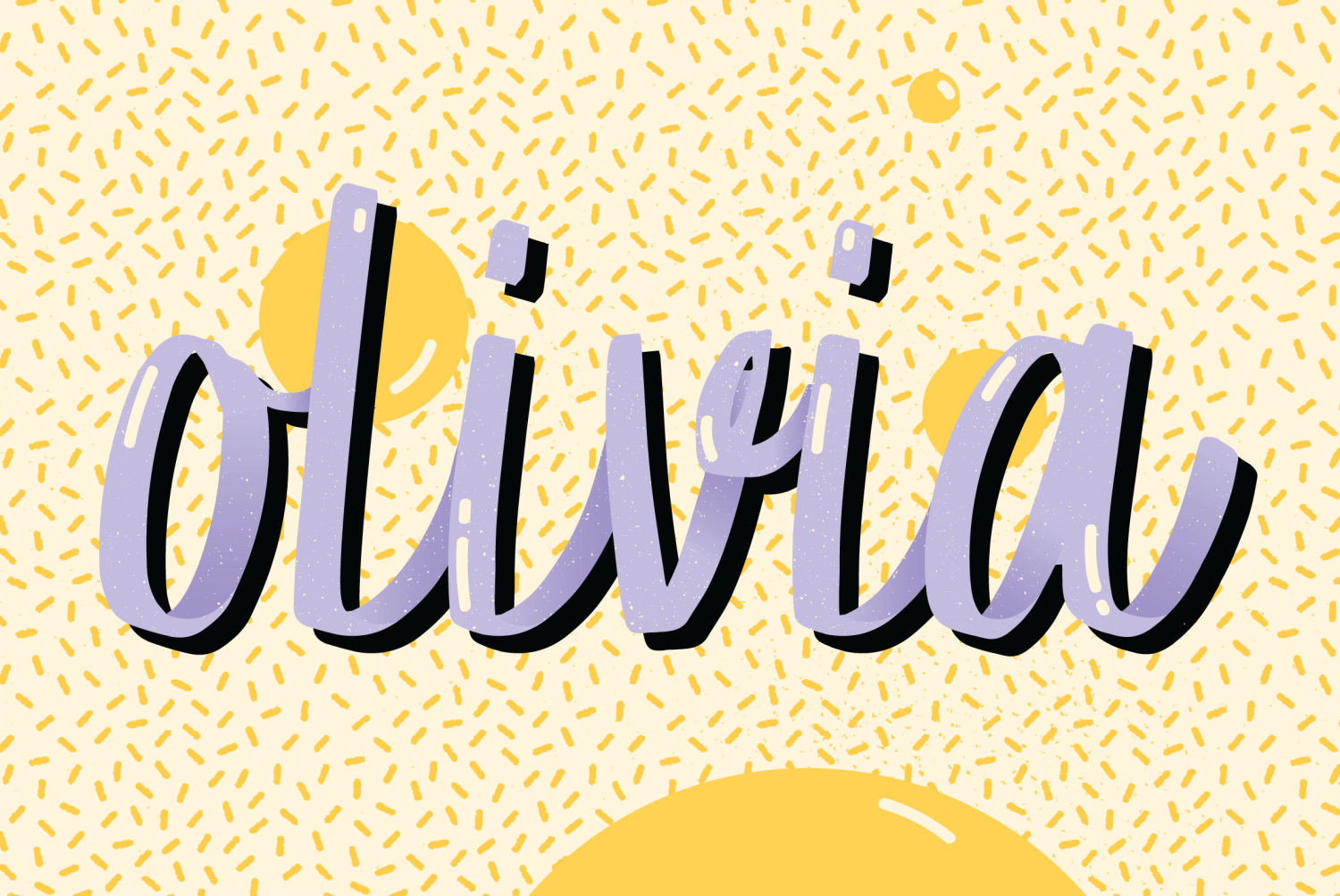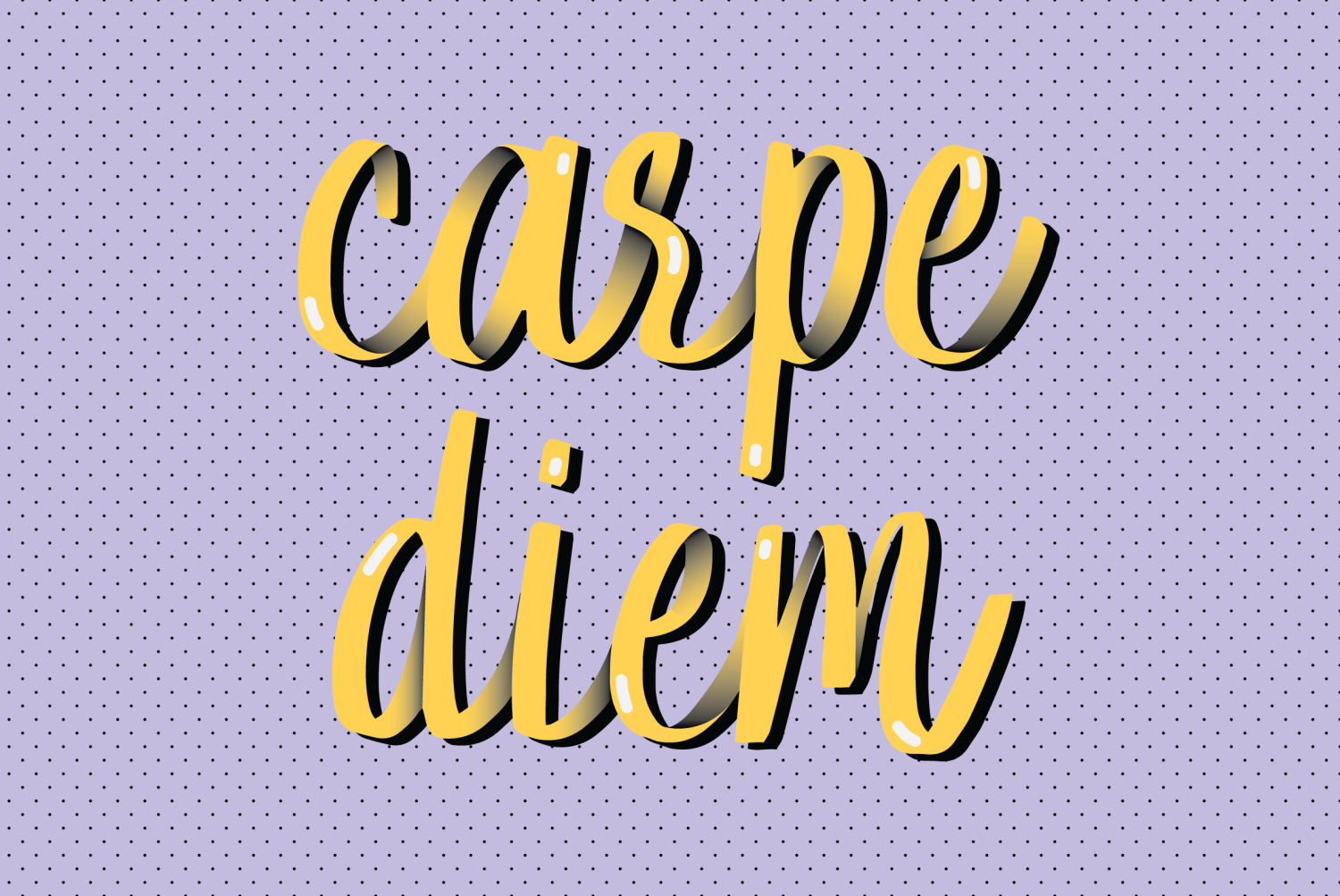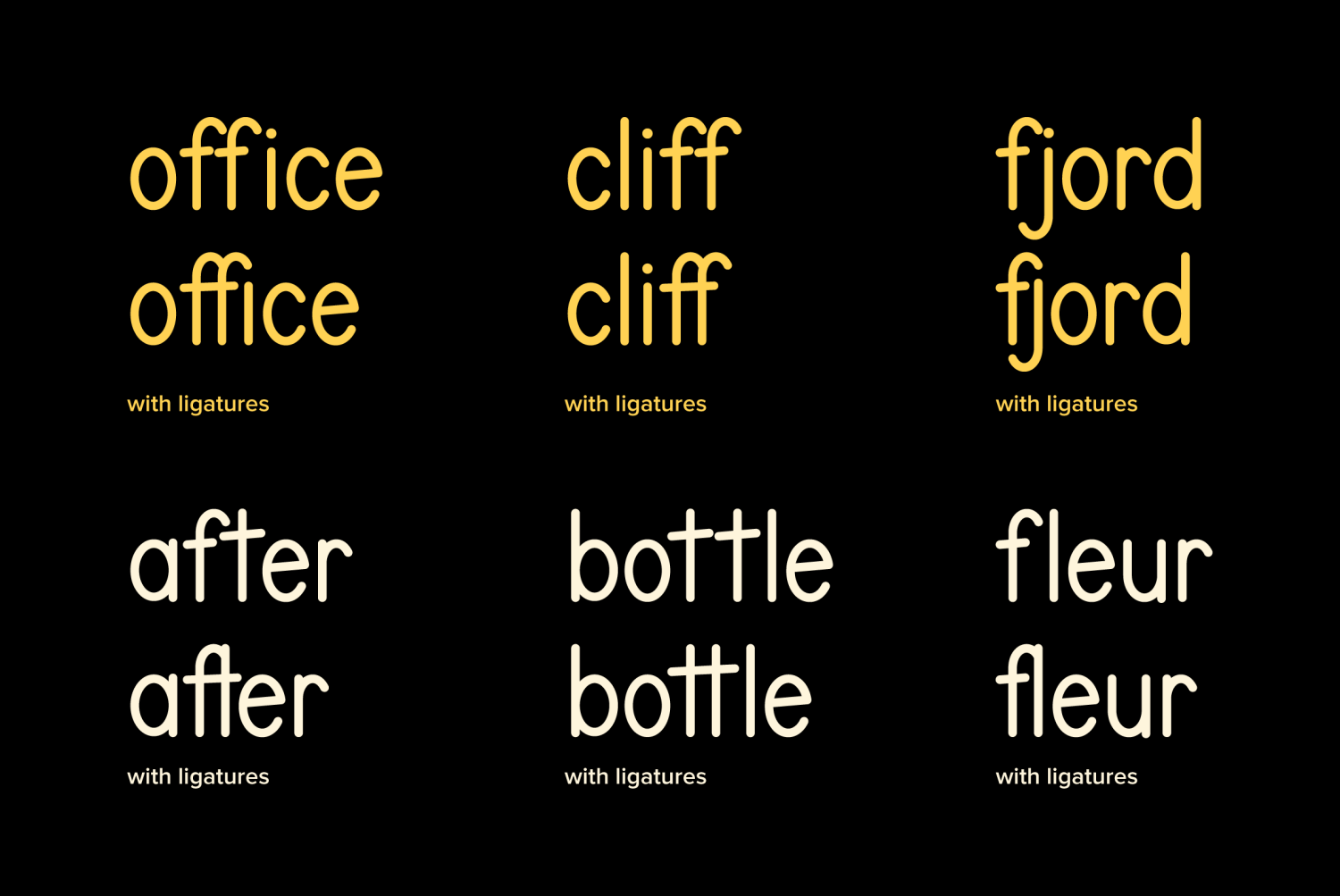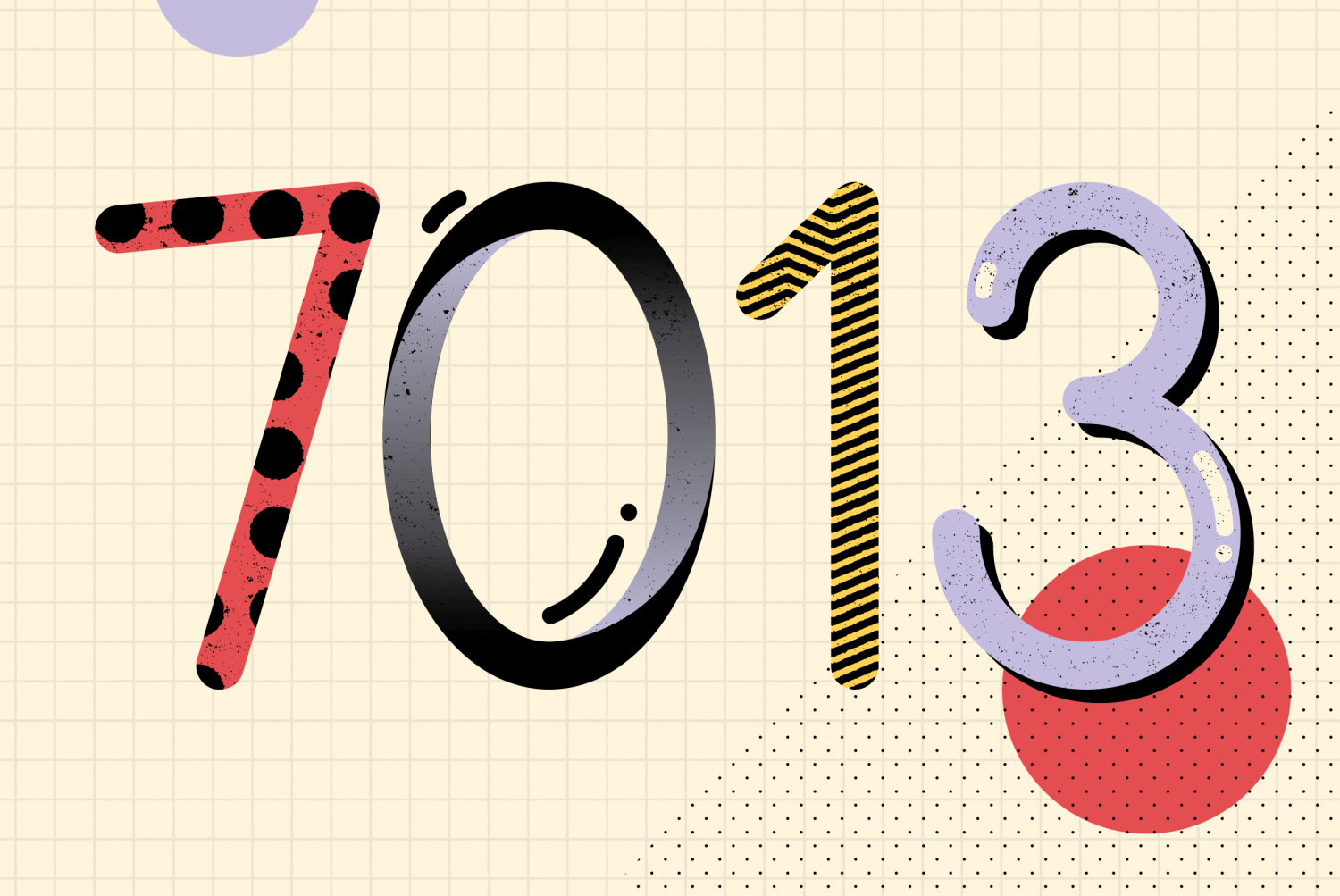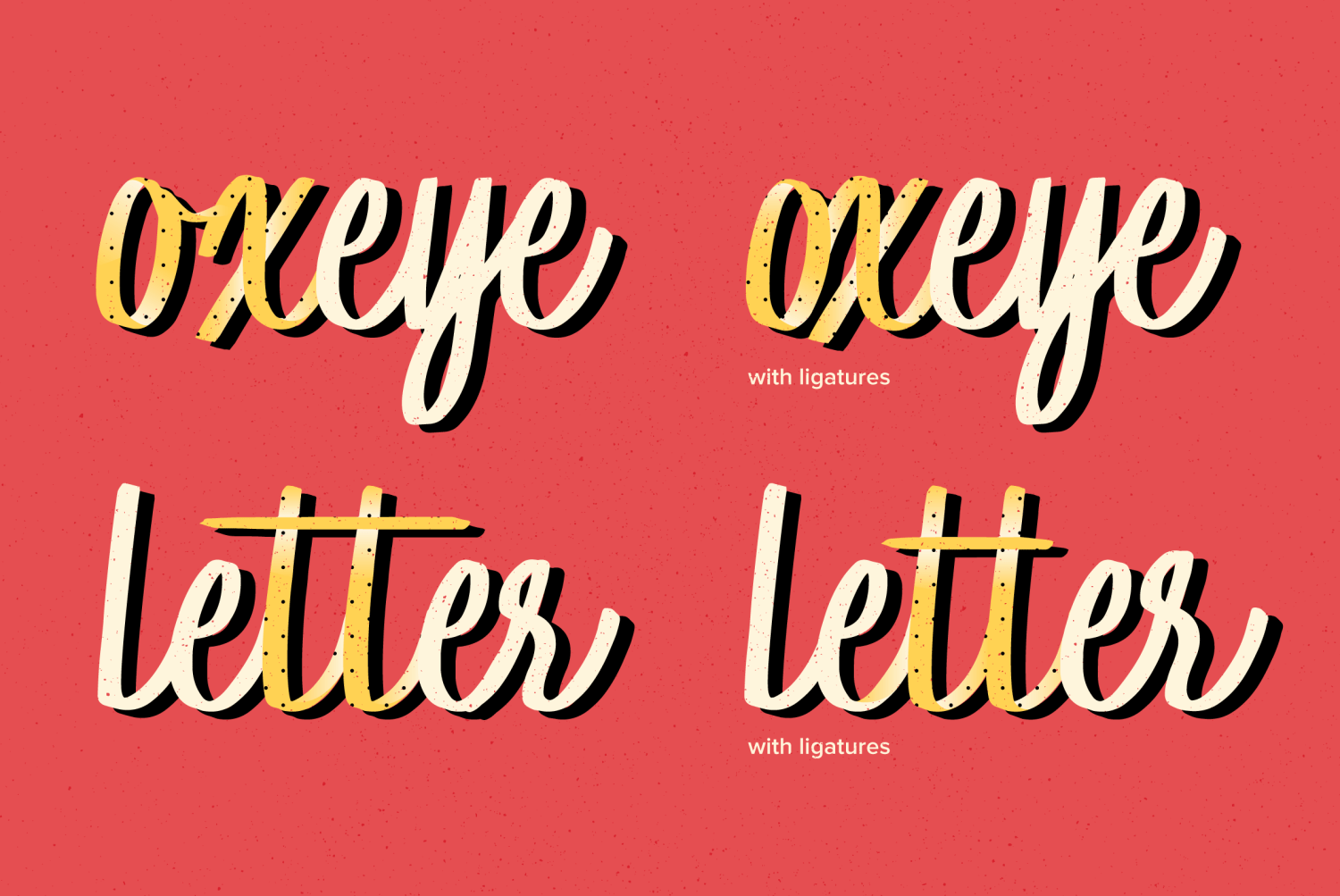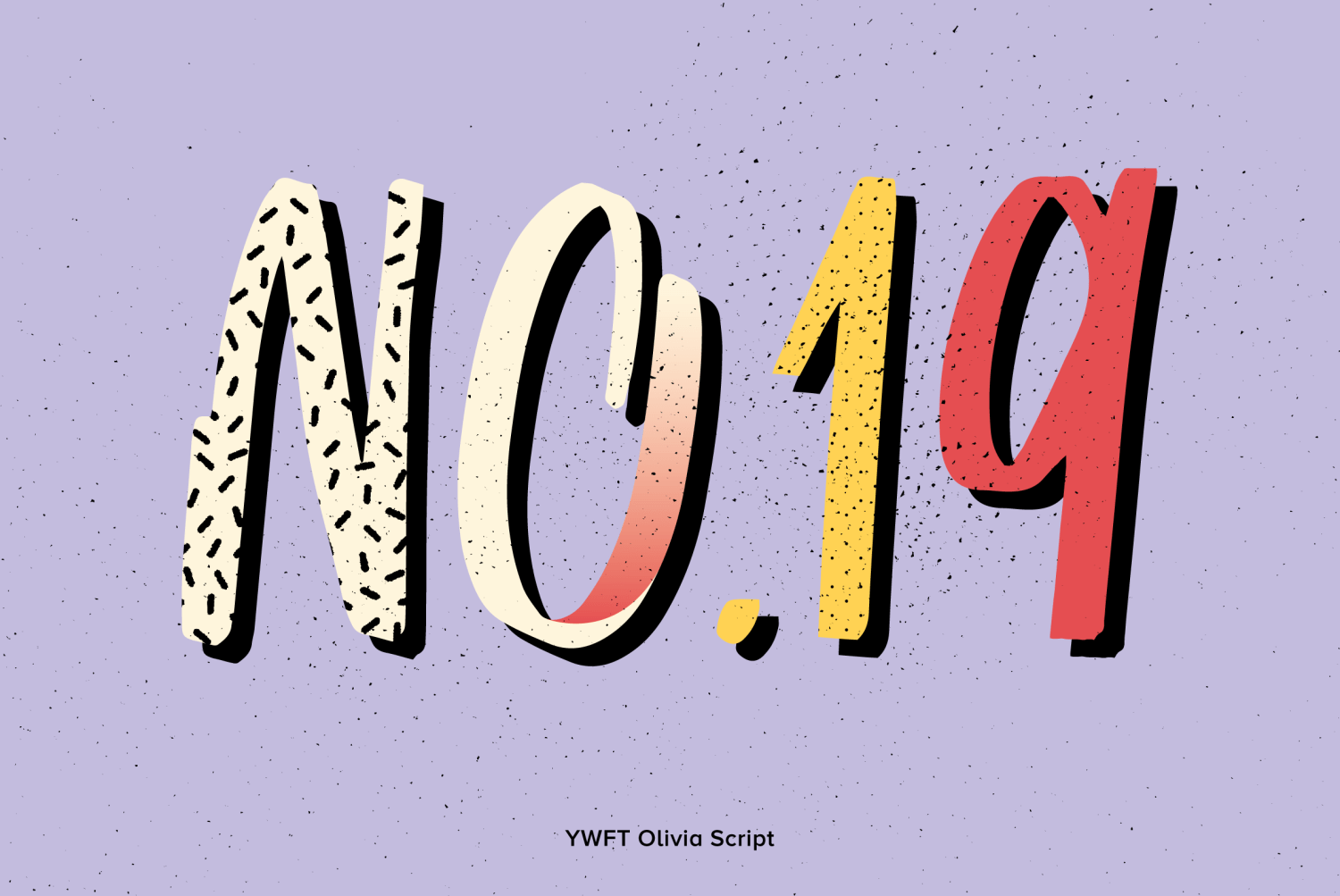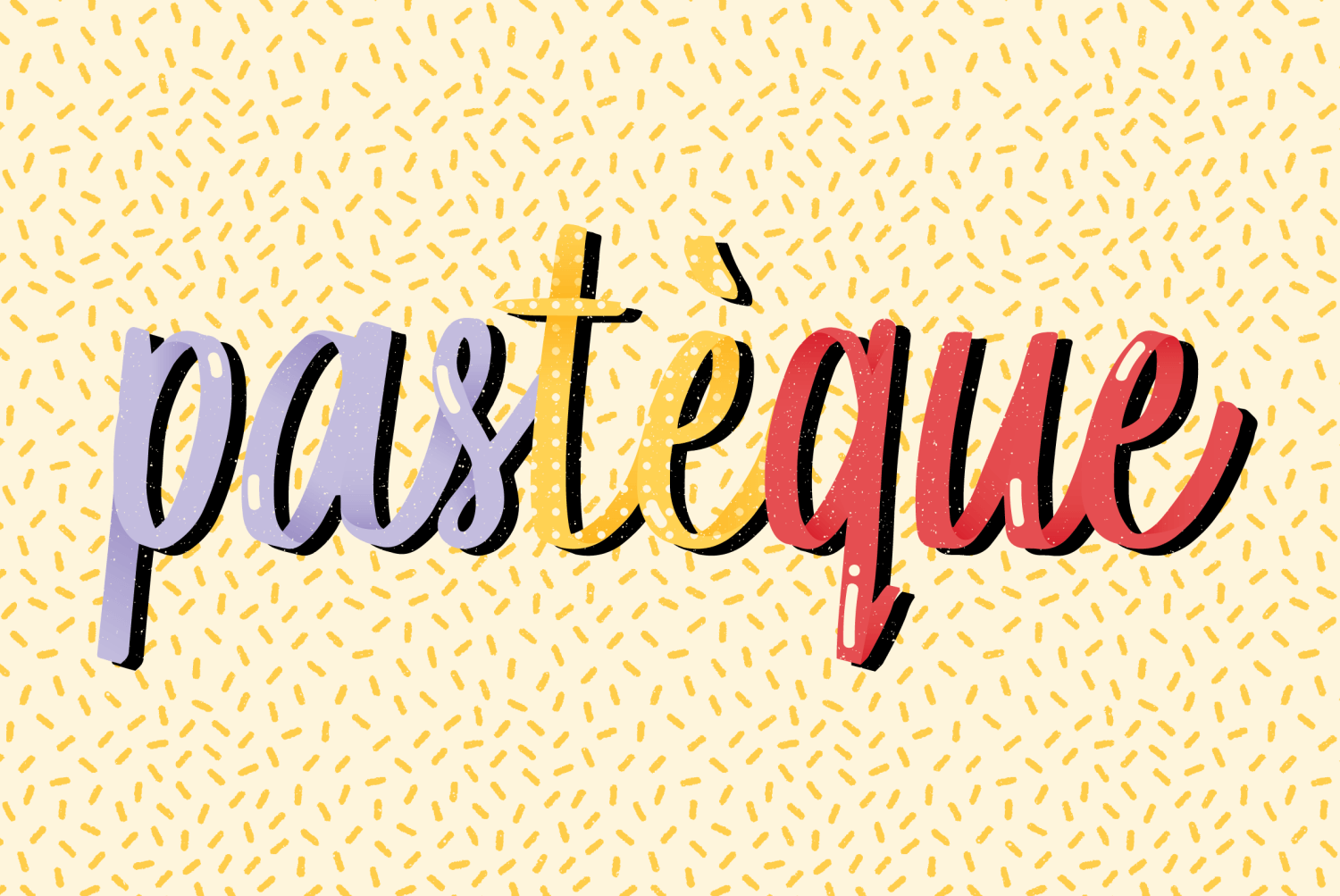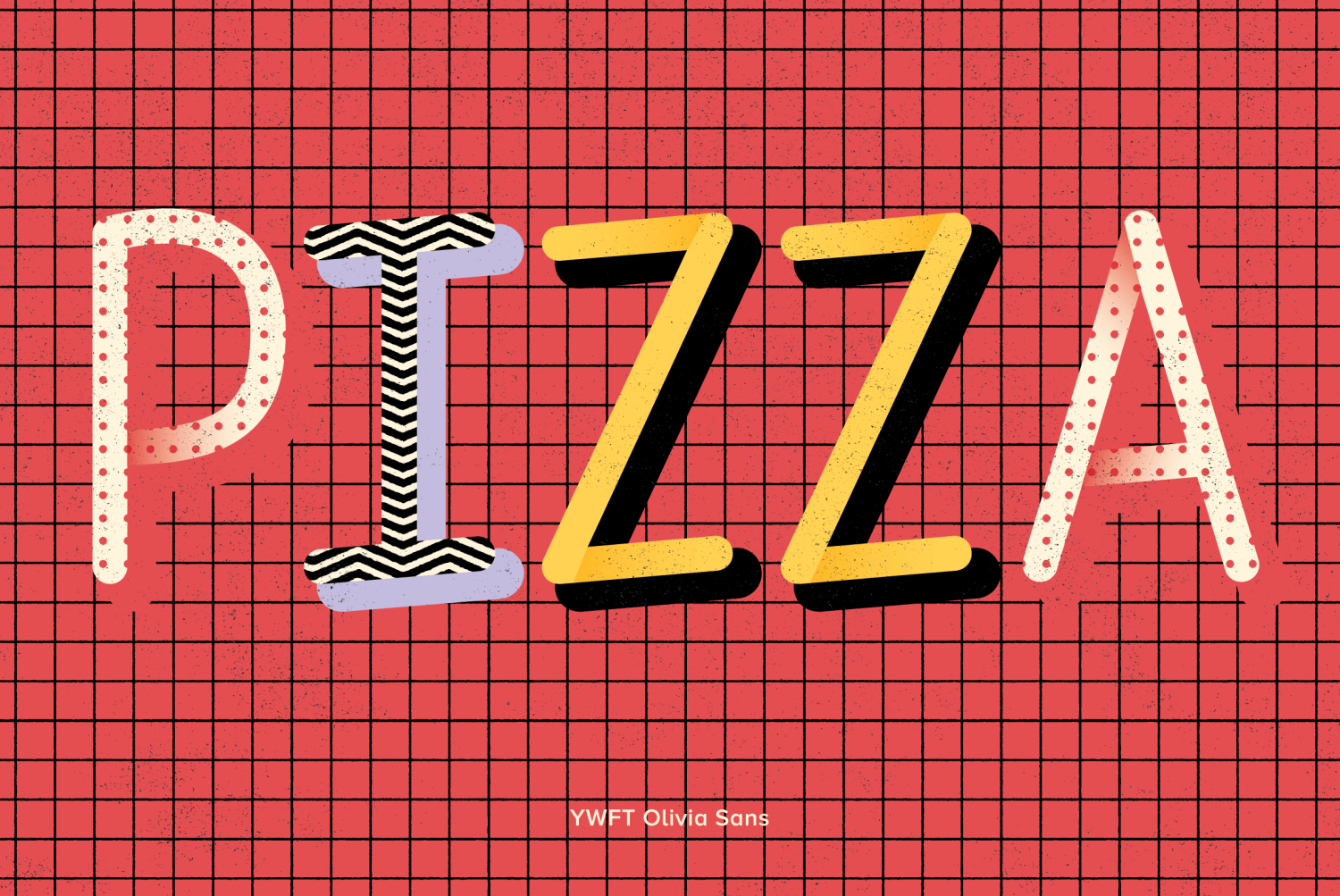
YWFT Olivia
Font Family by YouWorkForThem
There's nothing more celebrated than youth. We strive to look young for as long as humanly possible, and many of us recall parts of our childhood as some of the best moments of our lives.
YouWorkForThem has captured the essence of youthfulness with YWFT Olivia, a pair of playful hand-drawn type designs that celebrate what it means to be young. Comprised of a spirited script and a rascally sans serif, YWFT Olivia reminds us of what it feels like to be a kid again ? no matter what age we are.
The sans serif is reminiscent of grade-school print exercises, like the ones that children still carefully draw in elementary classrooms around the world. The handwritten script of YWFT Olivia is exuberant and ribbon-like in its architecture, with an innocent femininity that's wild and free.
The two variations of YWFT Olivia work well on their own or together for design projects of all kinds, including displays, signage, posters, book covers and children's book content, advertising, logos, and product packaging.